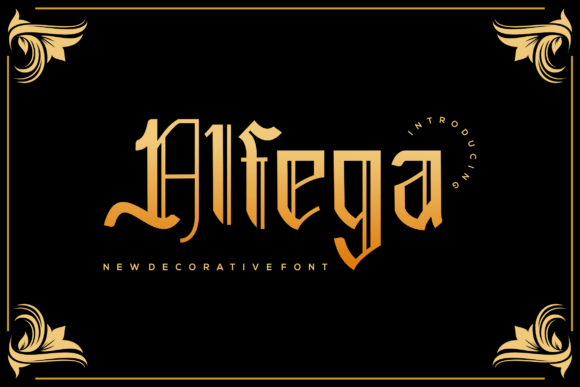
The Ultimate Guide to Alfega Font: A Modern Blackletter Masterpiece
I’ll never forget the struggle I faced while working on a logo design project for a new esport team. The client wanted a bold, edgy, and authentic look that would set their brand apart. As I scoured the internet for the perfect font, I stumbled upon Alfega – a modern, bold, and authentic blackletter font that instantly caught my attention. In this article, I’ll share my experience with Alfega, its features, and how to make the most of it in various design platforms.
An Honest Review of Alfega Font
What I Love About Alfega ✨
- ✅ Unique and Authentic Design: Alfega’s blackletter style is both modern and traditional, making it perfect for designs that require a bold statement.
- ✅ High Versatility: This font is suitable for various branding projects, including logos, t-shirt printing, esport designs, and more.
- ✅ Excellent Legibility: Despite its bold and intricate design, Alfega remains highly legible, even at smaller font sizes.
- ✅ OpenType Features: Alfega supports OpenType features, allowing for advanced typographic control and stylistic alternates.
- ⚠️ Limited Use in Formal Contexts: Due to its bold and edgy nature, Alfega might not be suitable for formal or traditional designs, such as corporate branding or official documents.
- ⚠️ Glyph Limitations: While Alfega has an impressive character set, it might not include every special character or glyph required for specific projects.
The Backstory of Alfega Font
Alfega was designed by a team of typographers who aimed to create a modern, bold, and authentic blackletter font. Inspired by traditional calligraphy and lettering techniques, they crafted Alfega to be both elegant and edgy. The font’s unique design and versatility have made it a popular choice among designers and crafters.
| Font Name | Alfega Font |
| Author | kalingga.albert |
| What is Alfega font suitable for? | Alfega is suitable for various branding projects, including logos, t-shirt printing, esport designs, and more. |
| Does Alfega support OpenType features? | Yes, Alfega supports OpenType features, allowing for advanced typographic control and stylistic alternates. |